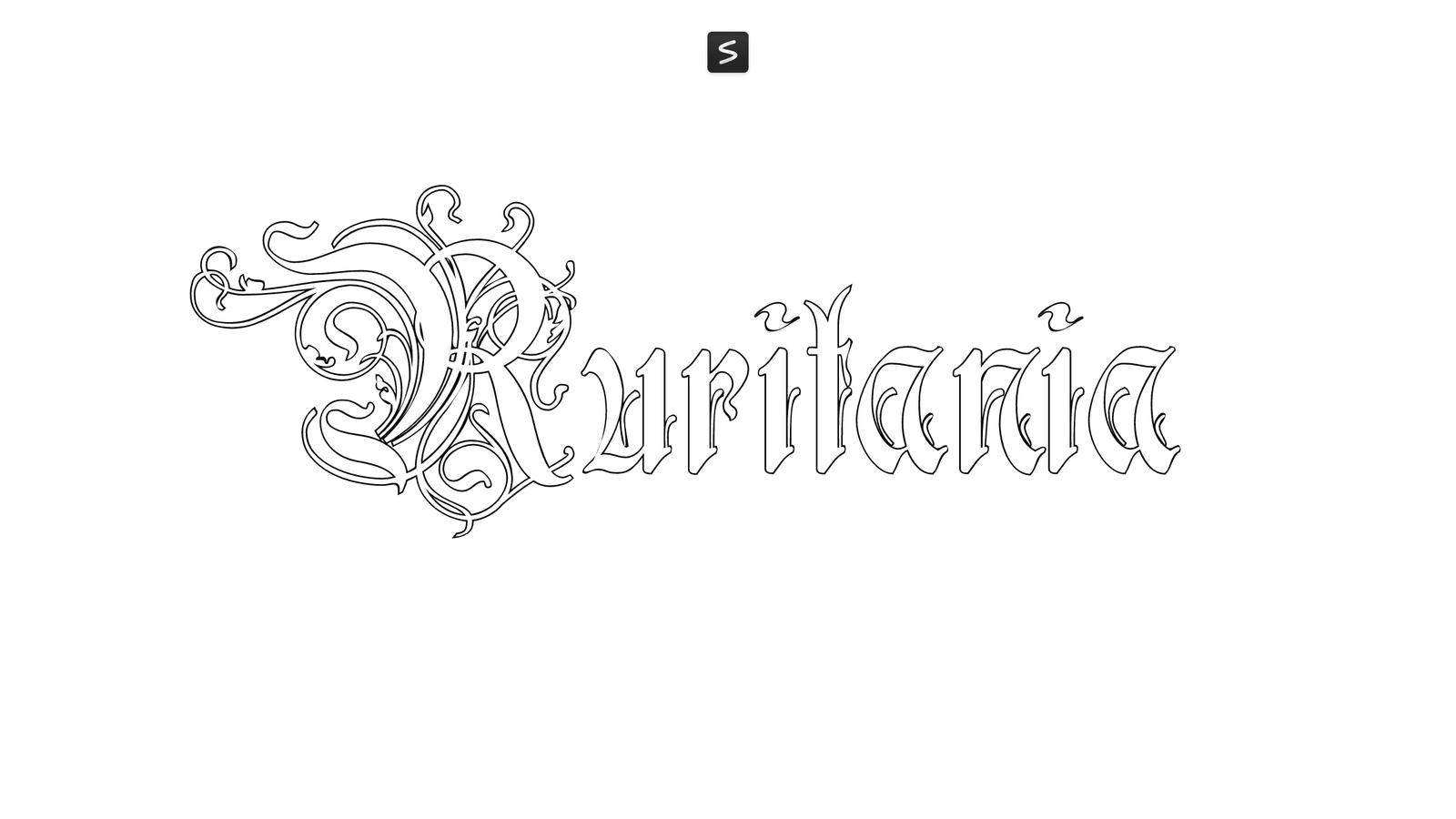
Ruritania is a medieval-inspired gothic font designed by Paul Lloyd. It channels the look of old manuscript lettering and ornamental scripts, with tall, angular letterforms that evoke the aesthetic of historic European texts and fantasy worldbuilding.
The font has decorative, slightly spiky terminals and a formal bearing that works well for titles, headers, and display work. Its ornamental character makes it feel like something pulled from a storybook or fantasy novel, though it remains readable enough for solid design work.
Ruritania suits projects that need period atmosphere: fantasy posters, game assets, book covers, invitations, packaging, or any design that benefits from a touch of old-world formality and mystery.